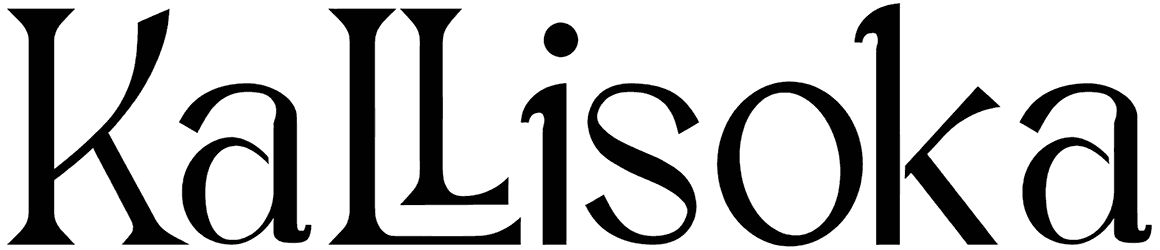
Broken Hearts Font
No matter what your purpose is, this Broken Hearts font will help you create a professional look. Fashion, clothing, luxury brand logos, and stationery designs can benefit from this creative serif font, which comes in two different styles.
Here is a title font for industrial use that will set you apart from your competition and determine you as a professional designer among your clients and colleagues, even though it does not contain lowercase letters.